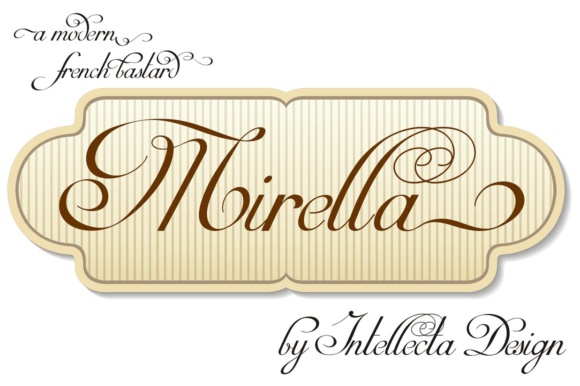
Mirella Font
About Mirella Font
Mirella Limited is the smaller set version of the larger Mirella Script. This gorgeous and swashy font is a great way to give your designs an extravagant and elegant look, all with a beautiful calligraphic appeal.